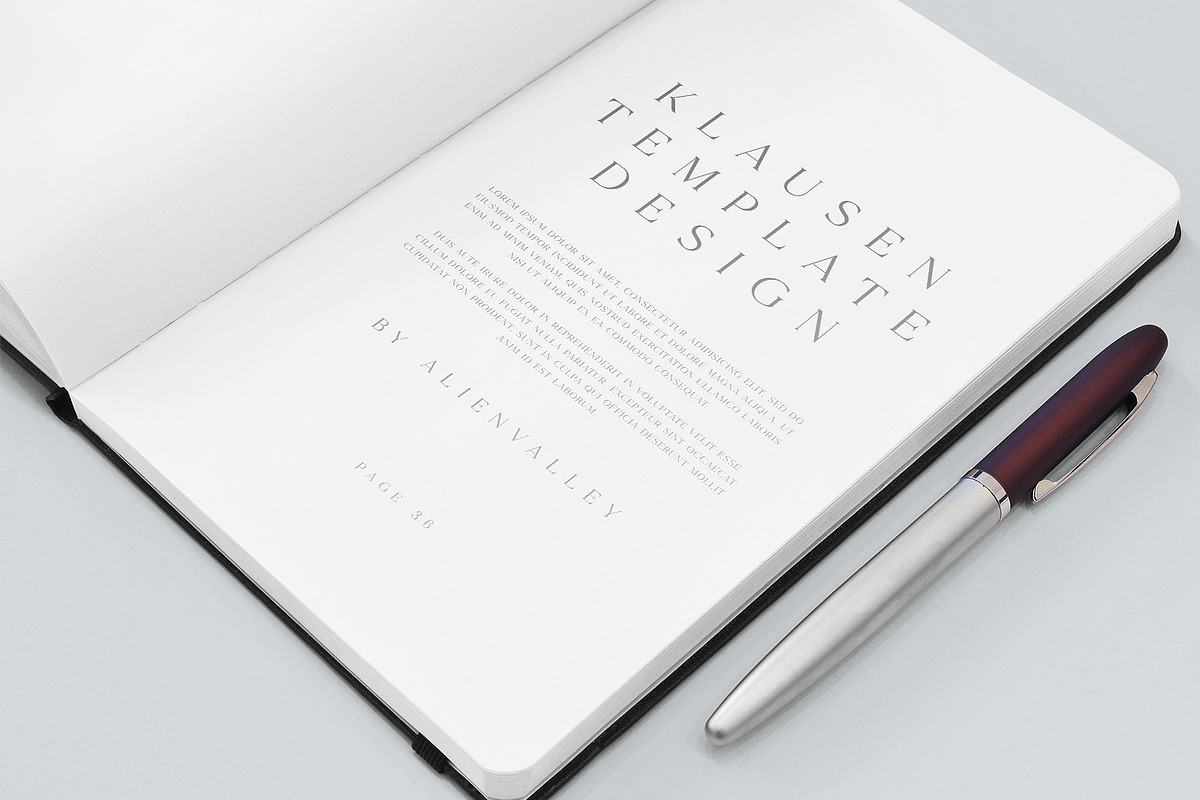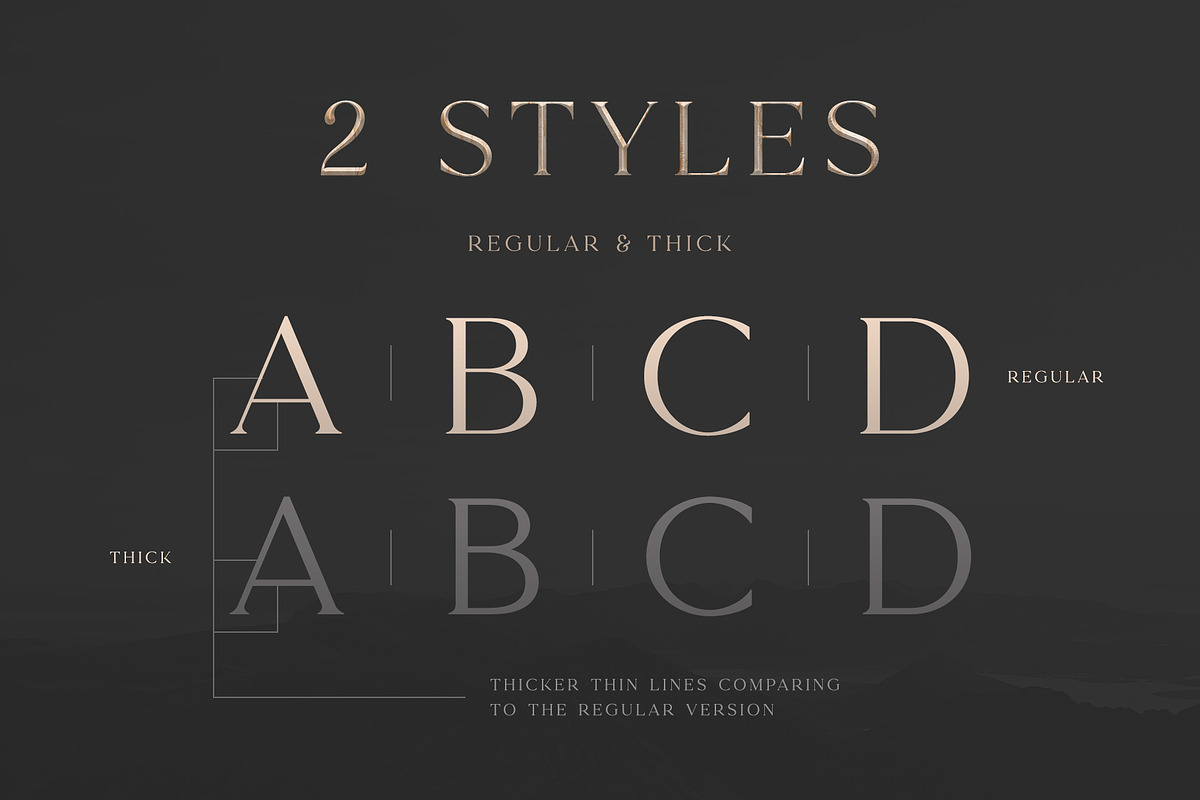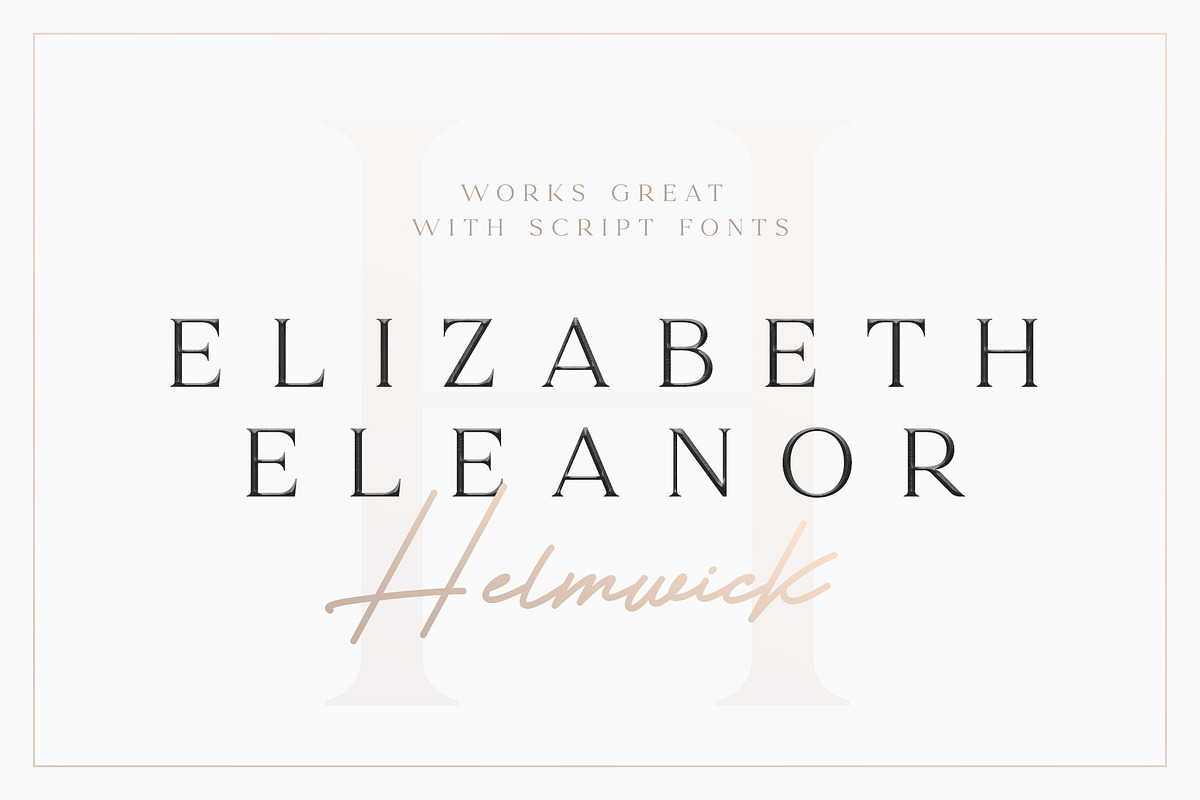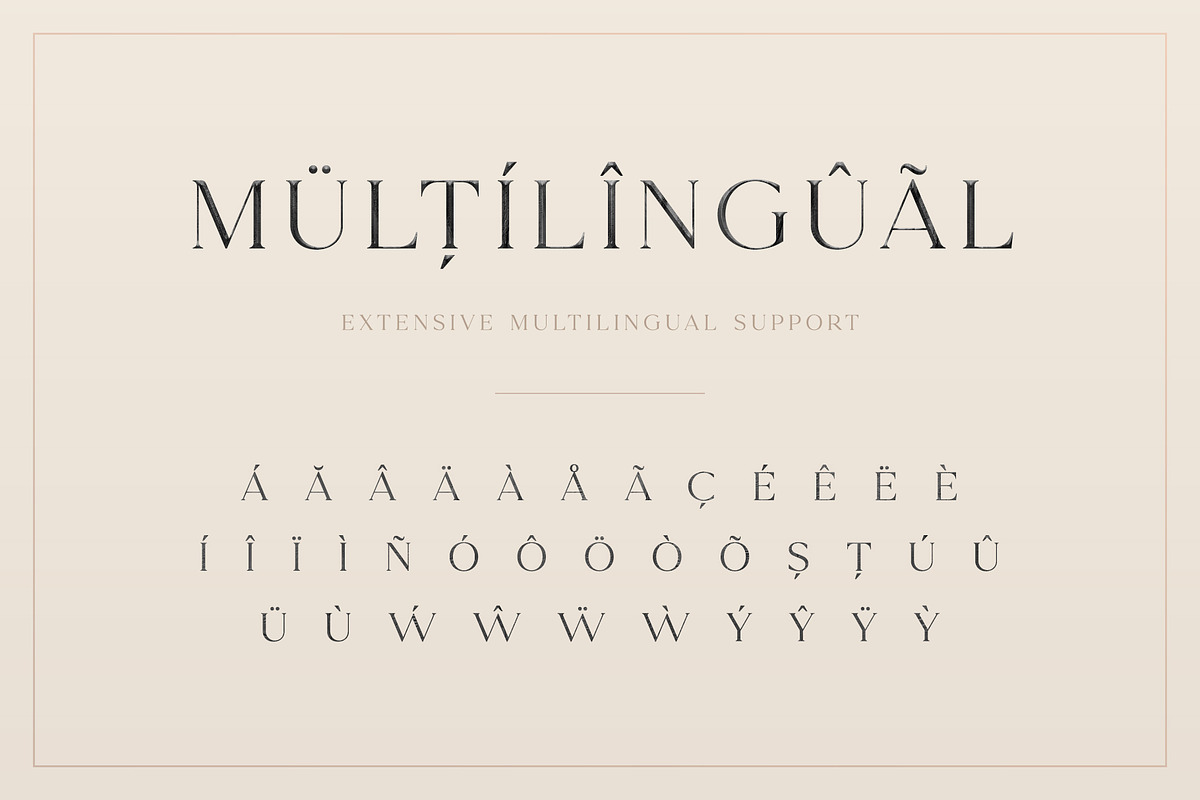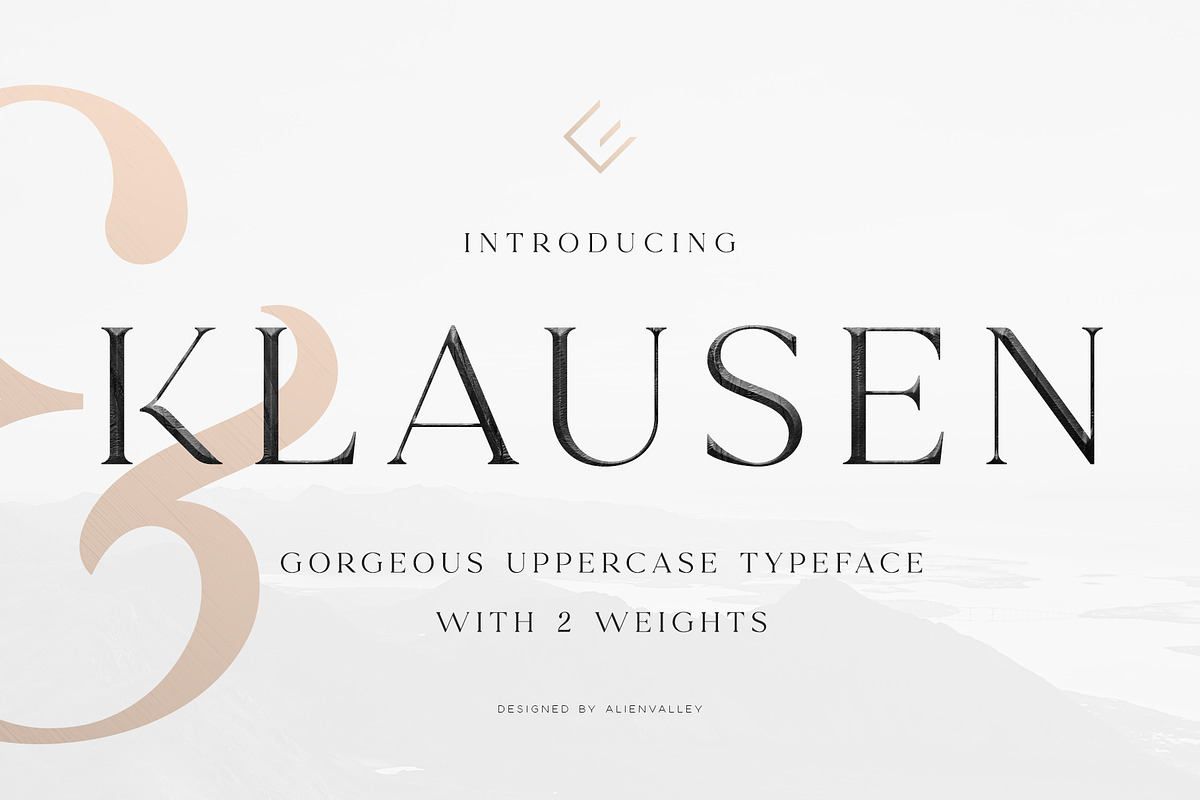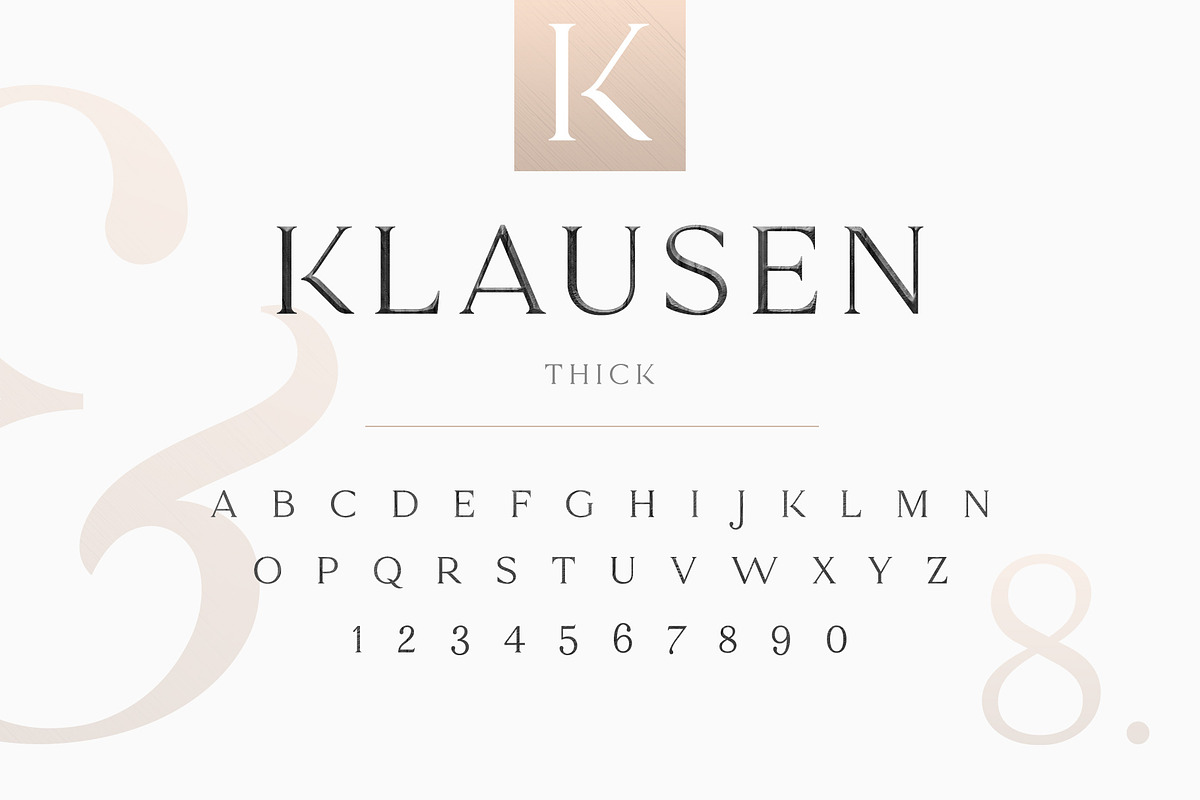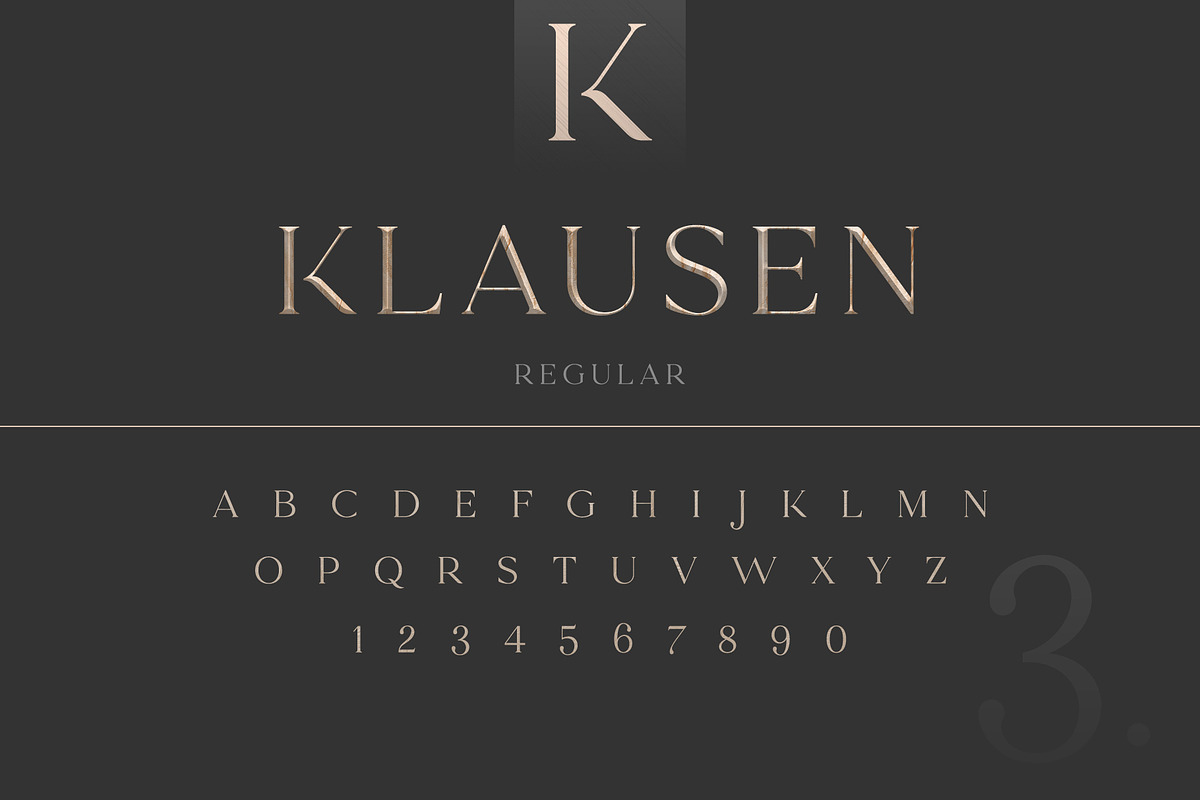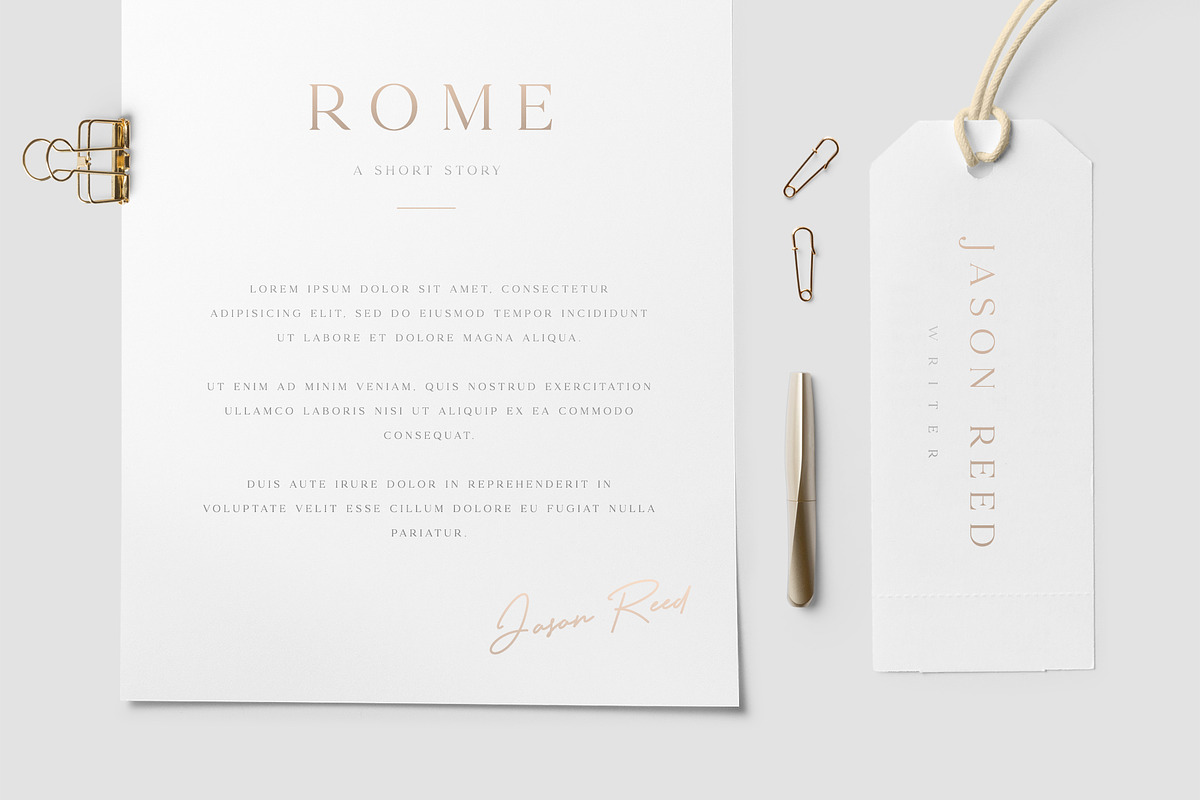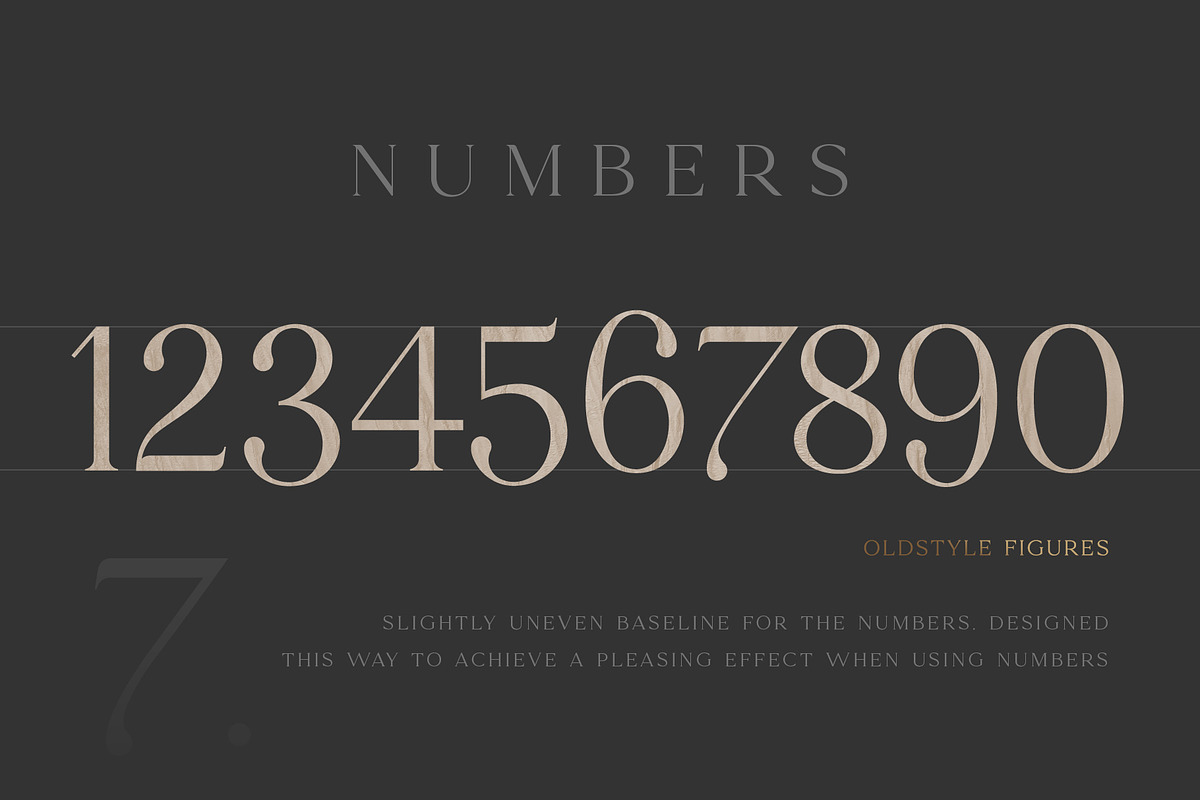
Klausen - Stylish All Caps Serif
Klausen is a stylish all caps serif typeface featuring 2 styles plus multilingual support. It was designed for headlines and headers and it looks great when combined with script or signature fonts.
- Beautiful uppercase letters
- 2 Styles (Regular, Thicker)
- Oldstyle figures (uneven baseline for numbers)